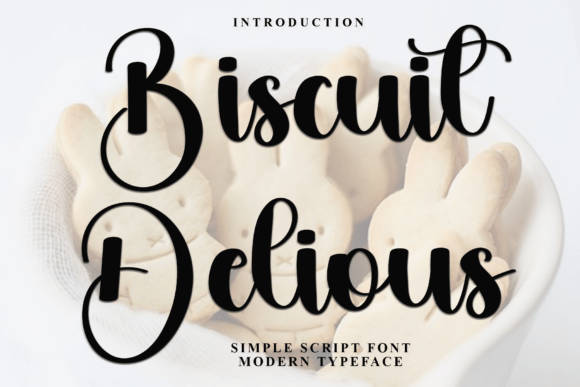
The Biscuit Delious Font: A Game-Changer for Designers and Crafters
I’ll never forget the struggle I faced while working on a project for a client who wanted a unique, hand-drawn feel. I scoured the internet for the perfect font, but nothing seemed to fit the bill. That was until I stumbled upon the Biscuit Delious font. Its soft, distinctive strokes and special character immediately caught my attention. I knew right then and there that I had found the perfect fit for my project.
What I Love About Biscuit Delious ✨
• ✅ Unique and eye-catching design that’s sure to turn heads
• ✅ Versatile and meaningful, making it perfect for a wide range of design projects
• ✅ Natural font style that’s ideal for crafts, design projects, and other creative works
While Biscuit Delious is an amazing font, there are a few things to keep in mind. ⚠️ Some users have reported that the font can be a bit tricky to read at smaller sizes, so it’s best to use it for headlines or titles rather than body text. Additionally, the font’s unique design may not be suitable for every project, so it’s essential to consider your design goals before using it.
Tips for Getting the Most Out of Biscuit Delious
The Story Behind Biscuit Delious
Biscuit Delious was designed with the intention of creating a unique and eye-catching font that would add a touch of personality to any design project. The designer, who wishes to remain anonymous, was inspired by the world of baking and the joy of creating something from scratch. The result is a font that’s both beautiful and functional, perfect for designers, crafters, and creative hobbyists alike.
Q: What type of projects is Biscuit Delious best suited for?
A: Biscuit Delious is perfect for a wide range of design projects, including crafts, design projects, and other creative works.